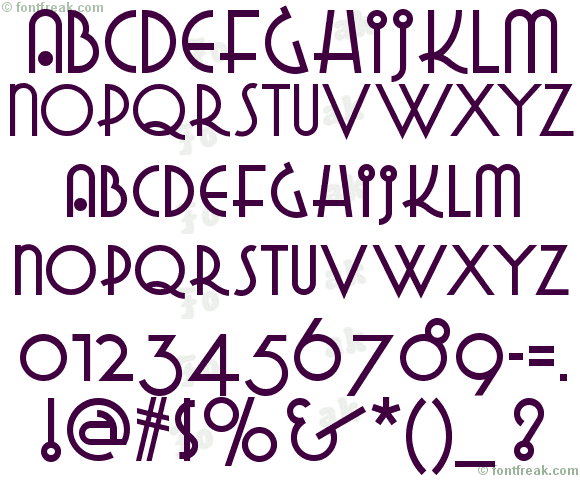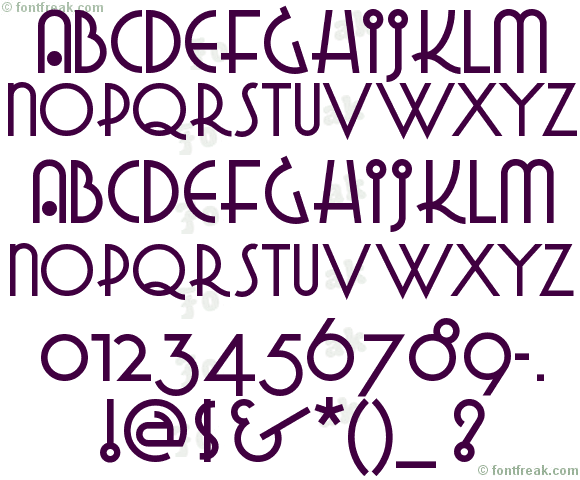
Grado Gradoo NF
Grado Gradoo NF is a striking display font designed by Nick Curtis, embodying a unique blend of modern aesthetics and playful charm. As a non-traditional typeface, it falls under the display category, making it ideal for attention-grabbing applications. The font features a bold stroke weight and minimal contrast, resulting in a cohesive look that is both readable and visually appealing. Its ample spacing between characters enhances legibility, while the rounded edges give it a friendly and inviting appearance.
This font shines in various creative contexts. It’s particularly well-suited for dynamic wedding invitations, where its stylish flair can elevate the overall design. Additionally, Grado Gradoo NF makes a memorable choice for movie posters, where bold typography can capture the essence of the film. Restaurant menus can also benefit from this font, adding a contemporary touch to the dining experience. Moreover, it is perfect for branding small businesses looking to establish a distinctive identity, as well as for content creators who want their digital projects to stand out.
Targeting graphic designers, small business owners, and content creators, Grado Gradoo NF offers versatility across a range of design projects. Its unique character set lends itself to creative experimentation, making it a favorite among those seeking to push the boundaries of visual communication.
What truly sets Grado Gradoo NF apart is its ability to blend playfulness with professionalism. The font's distinctive style ensures that it captures attention without overwhelming the viewer, making it an excellent choice for designers who want to make a statement. Explore the possibilities of this distinct typeface with a Grado Gradoo NF font free download, and infuse your projects with a touch of creativity and flair.